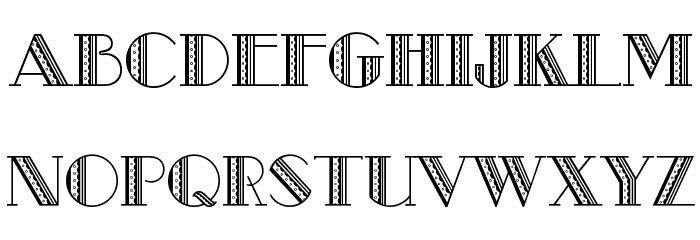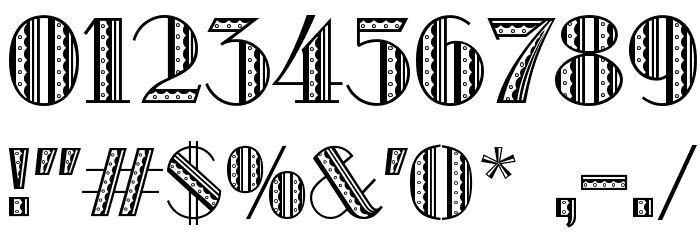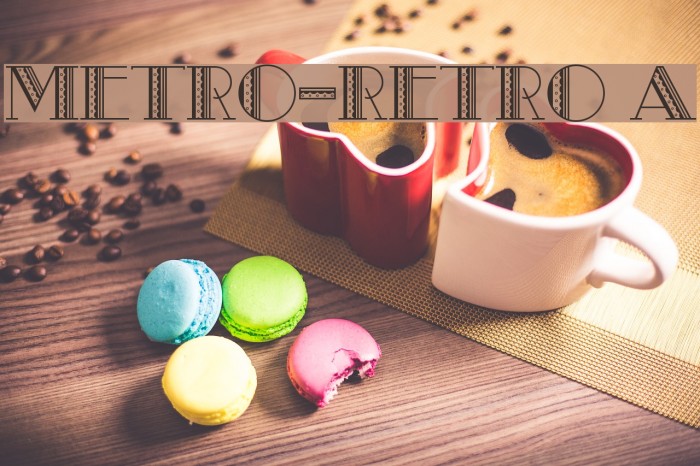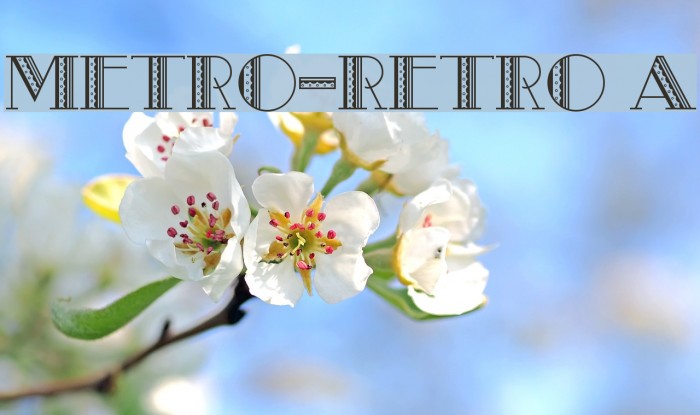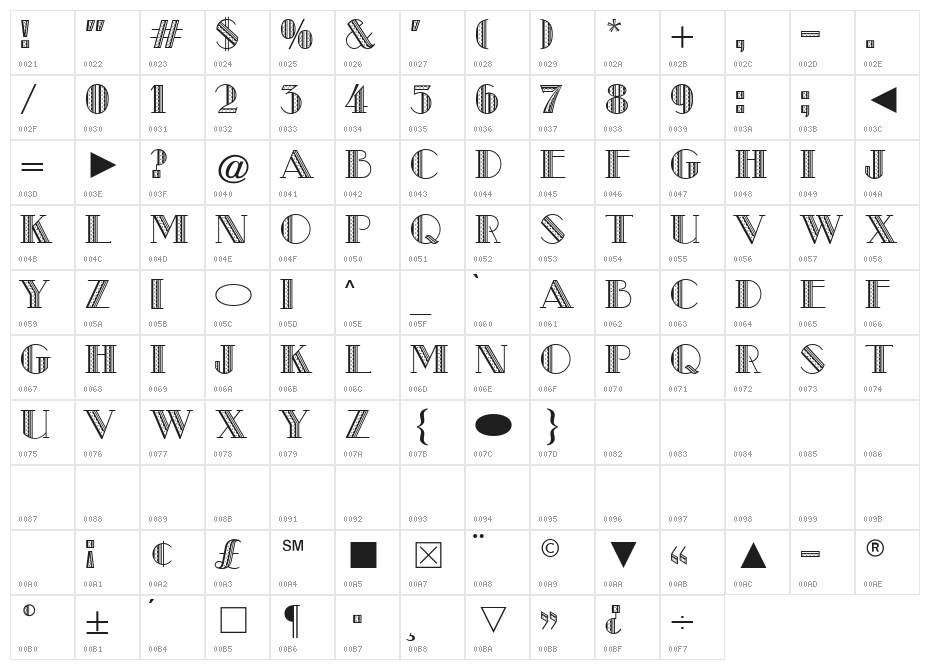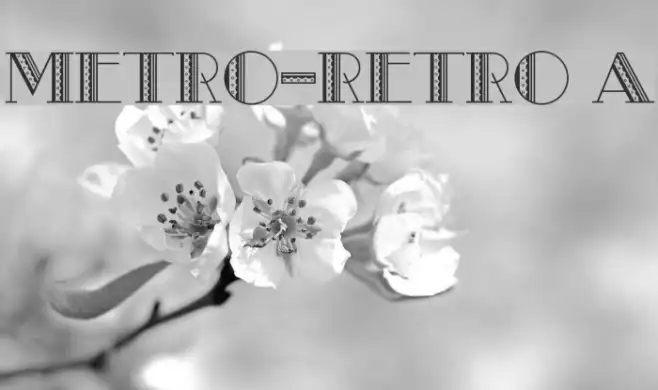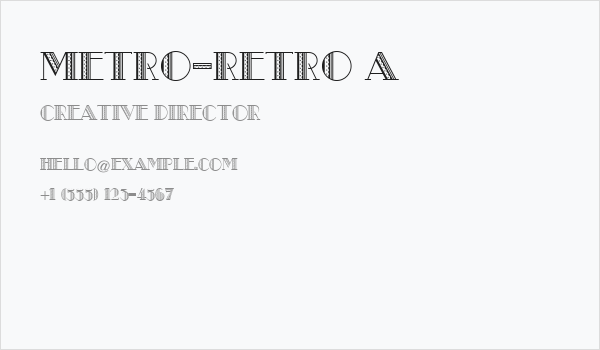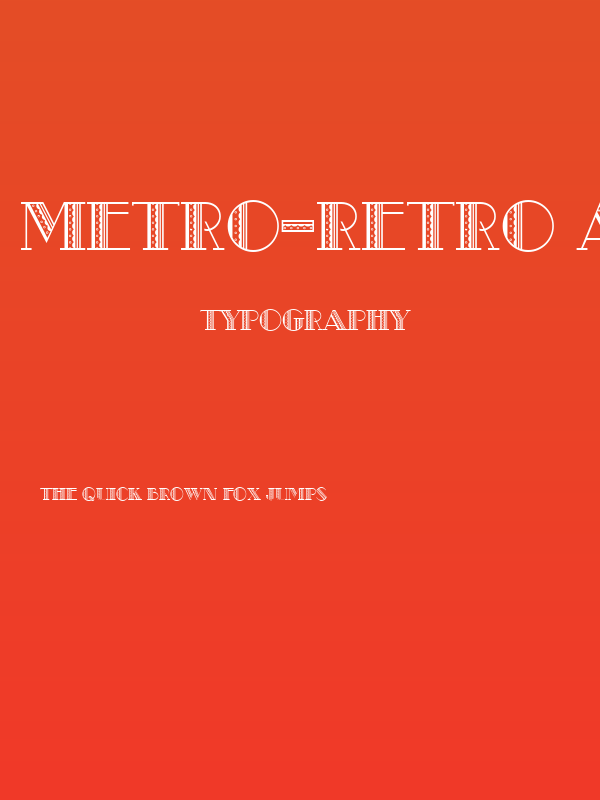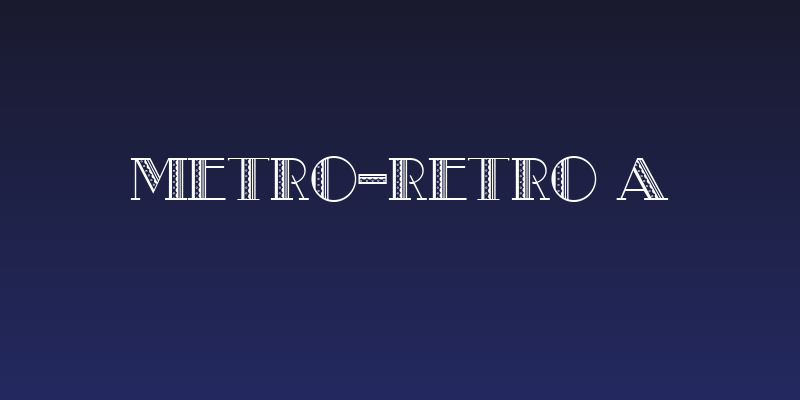
Metro-Retro A Font
This font features a unique blend of retro and modern design elements, characterized by its decorative and intricate detailing within each character. The letters are bold and eye-catching, with a distinct pattern that runs through the center of each character, reminiscent of vintage marquee lights or art deco influences. The uppercase and lowercase letters maintain a consistent style, offering a cohesive look across the alphabet. Numbers and special characters are equally stylized, making this font suitable for creative and artistic projects. The overall aesthetic is both playful and sophisticated, making it ideal for designs that require a touch of nostalgia with a contemporary twist.
A decorative, retro-inspired font with intricate detailing and bold characters.
- Proposed Projects: Ideal for poster designs, vintage-themed branding, event invitations, and artistic projects requiring a retro flair.
- Overall Style: Vintage